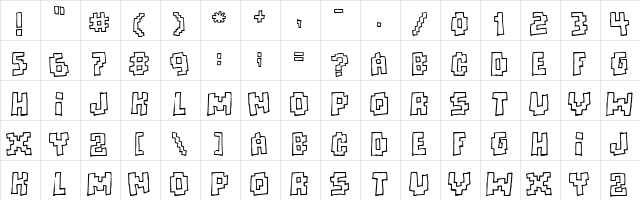
Freaks of Nature Regular Free Font
Freaks of Nature Regular
Design Context for Freaks of Nature
Freaks of Nature is a composed and adaptable typeface that performs quietly and consistently across a wide range of design contexts.